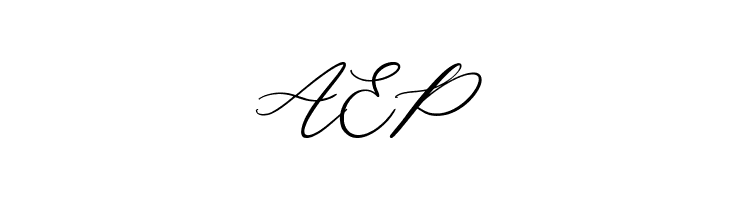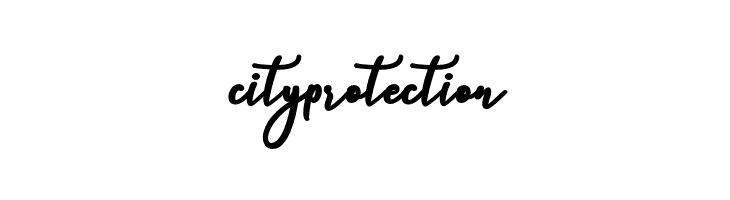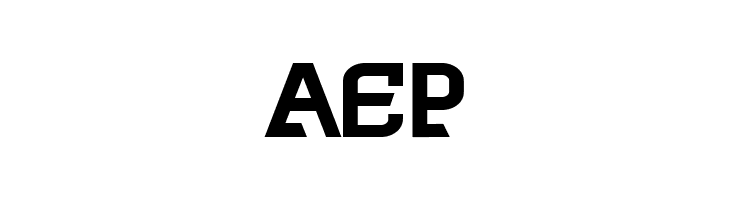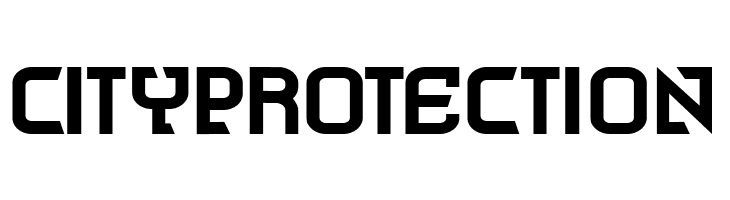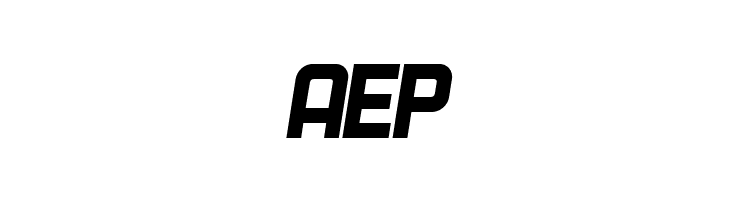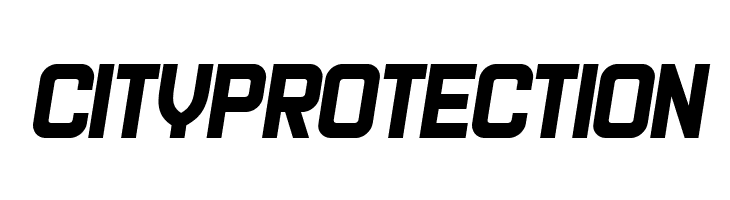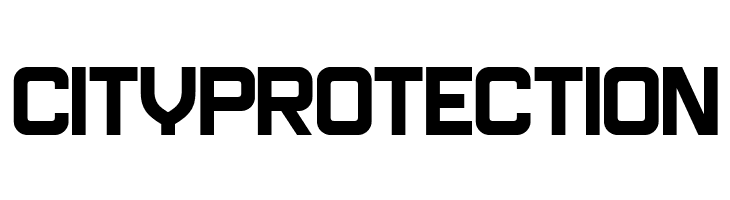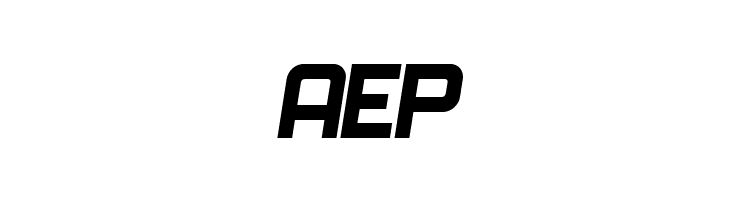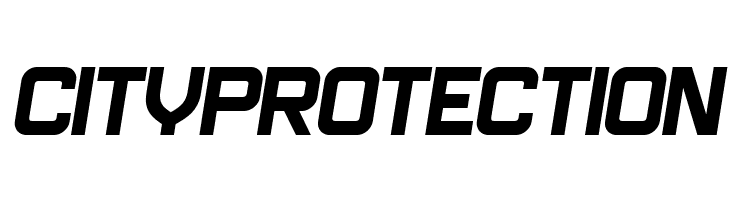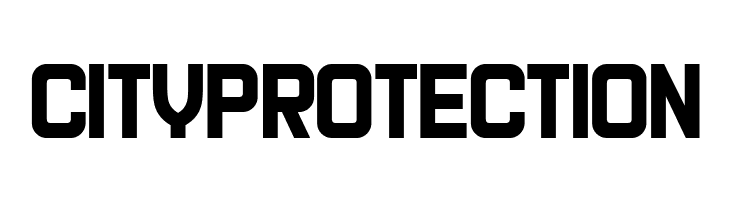
A casual, friendly handwritten font with smooth, flowing strokes.
A clean, modern sans-serif typeface with consistent stroke width and balanced spacing.
A bold, modern sans-serif font with excellent legibility and uniform stroke width.
A clean, modern sans-serif font with uniform stroke width and balanced spacing.
A modern, ultra-light sans-serif font with clean lines and balanced proportions.
A clean, friendly handwritten font with smooth curves and consistent stroke width.
A clean, rounded sans-serif font with a friendly and modern appearance.
A modern, clean sans-serif font with uniform stroke width and excellent readability.
A bold, modern sans-serif font with excellent readability and uniform design.
A clean, modern sans-serif font with a light weight and low contrast.
A modern, bold sans-serif font with clean lines and excellent legibility.
A clean, modern monospaced font ideal for coding and technical documentation.
A bold, monospaced font perfect for coding and technical documentation.
A bold, modern sans-serif font with uniform weight and minimal contrast.
A classic serif font with elegant, refined strokes and balanced proportions.
A classic serif font with elegant strokes and balanced proportions.
A bold serif font with sharp serifs and a strong, authoritative presence.
A bold, modern sans-serif font with clean lines and balanced spacing.
A bold, modern sans-serif font with excellent readability and uniformity.
A modern, light, and clean sans-serif font with excellent readability.
A modern, clean sans-serif font with excellent readability and balanced proportions.
A modern sans-serif font with rounded edges, offering a friendly and approachable style.
A modern, rounded sans-serif font with bold weight and excellent readability.
A modern, rounded sans-serif font with excellent readability.
A modern, rounded sans-serif font with a clean and approachable style.
A bold, geometric font with a modern, angular design.
A bold, cursive font with a flowing, handwritten style.
A graceful script font with flowing, cursive letterforms and a handwritten aesthetic.
A bold, extended, and italic font with a modern, dynamic style.
A bold, italic font with a modern and dynamic style.
A bold, geometric font with a modern and structured design.